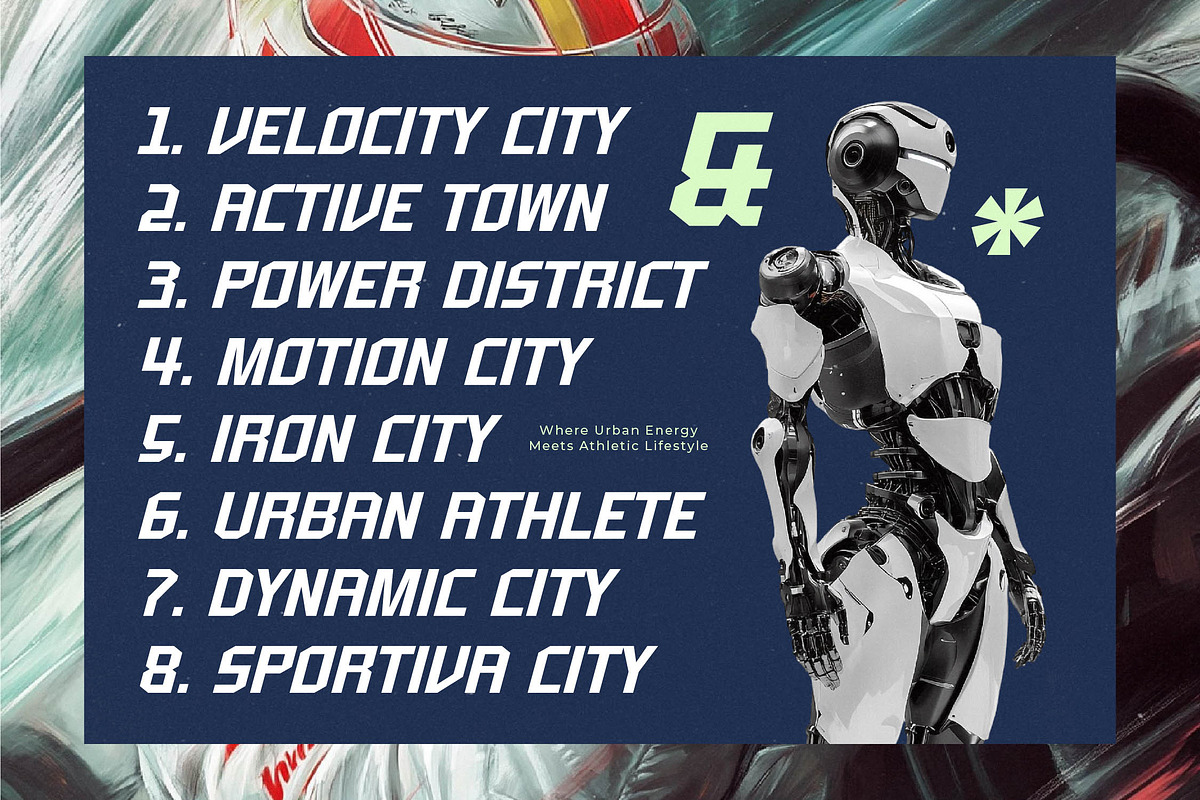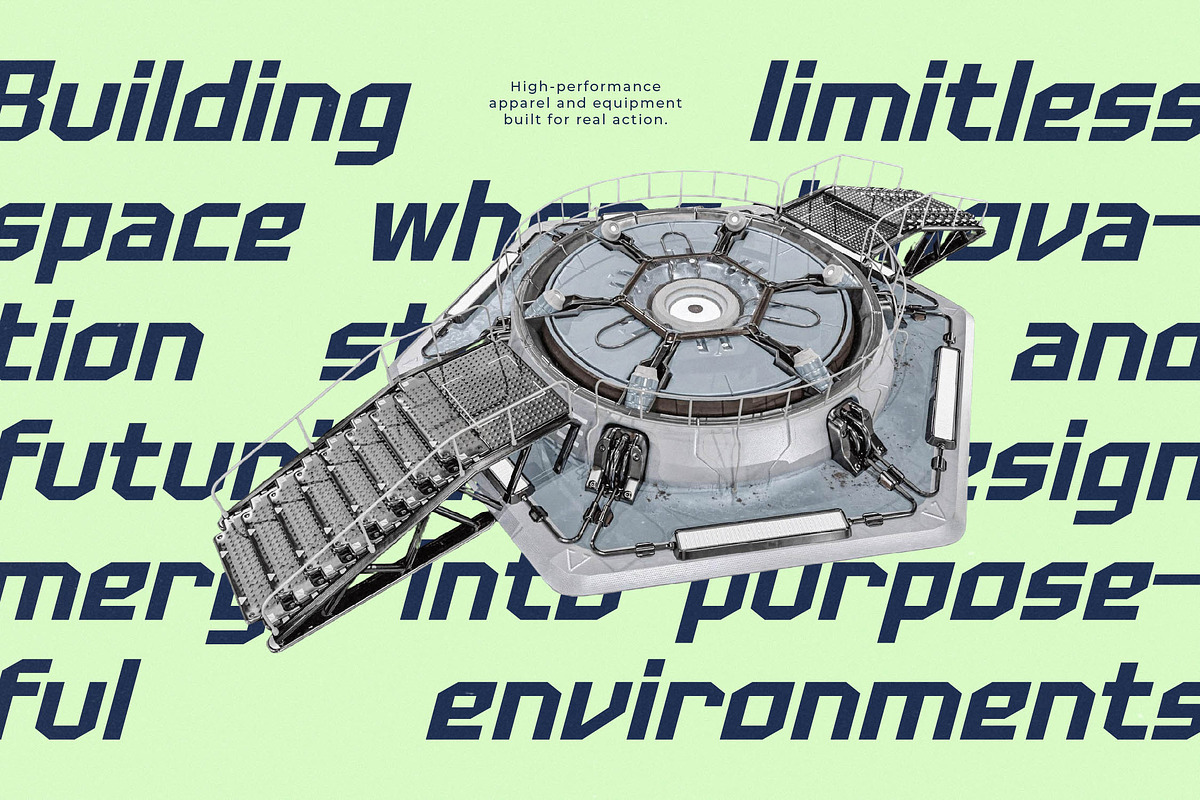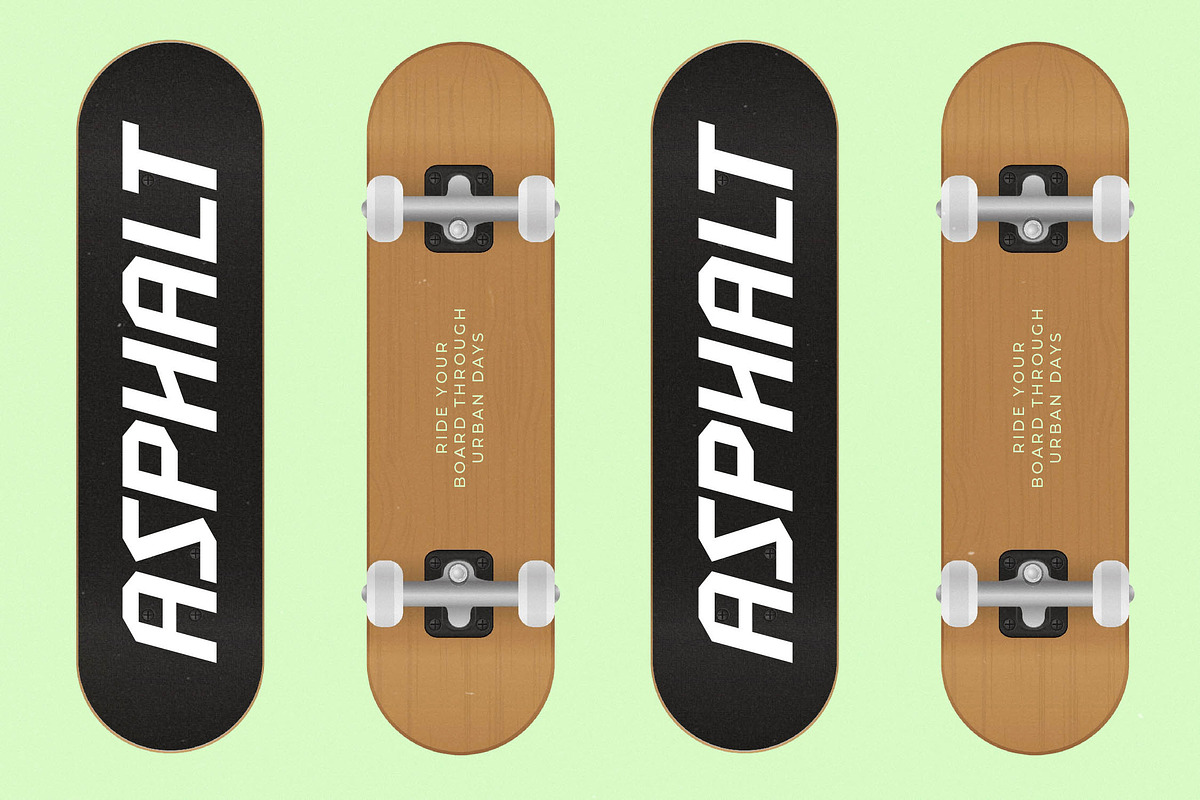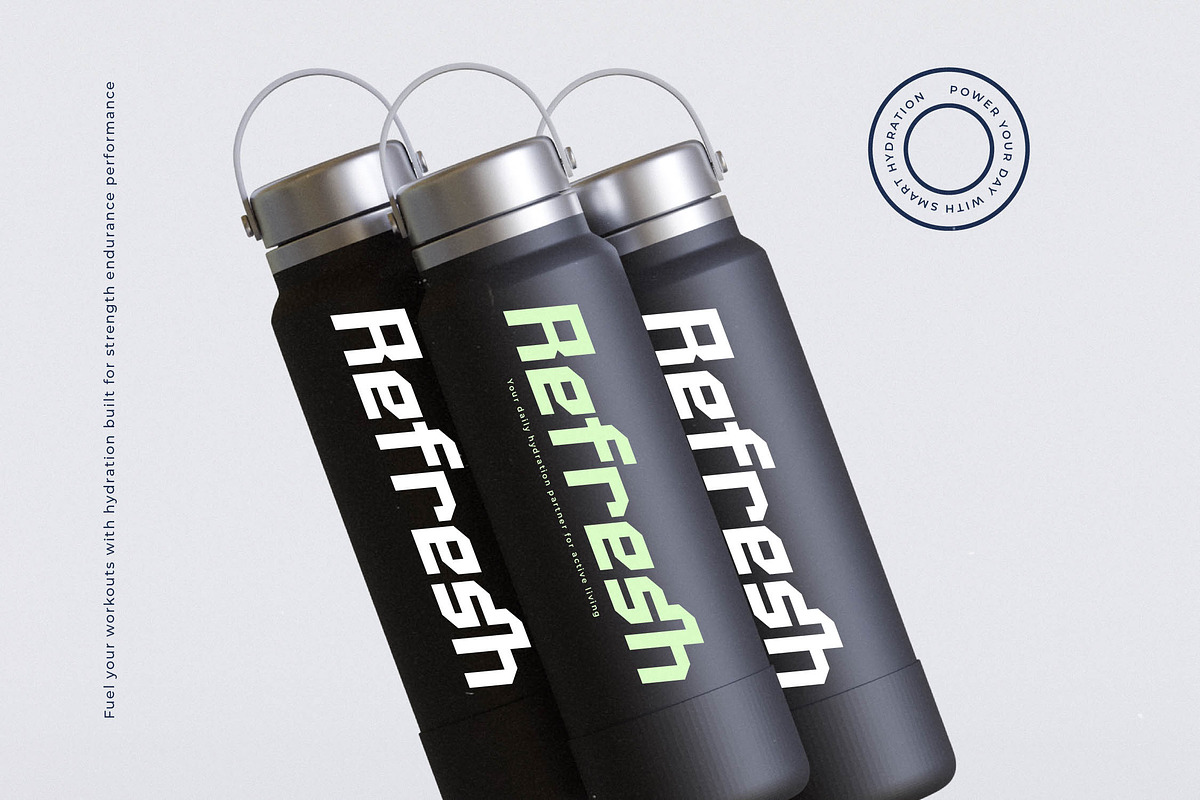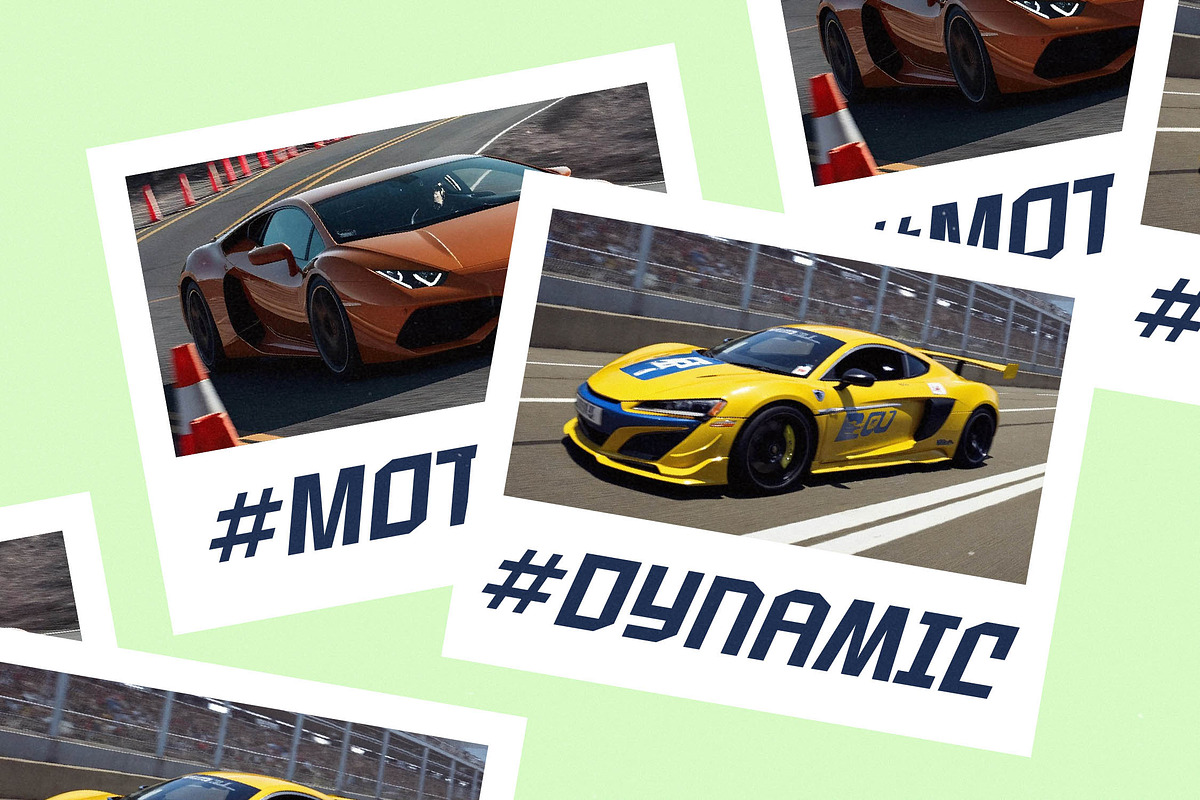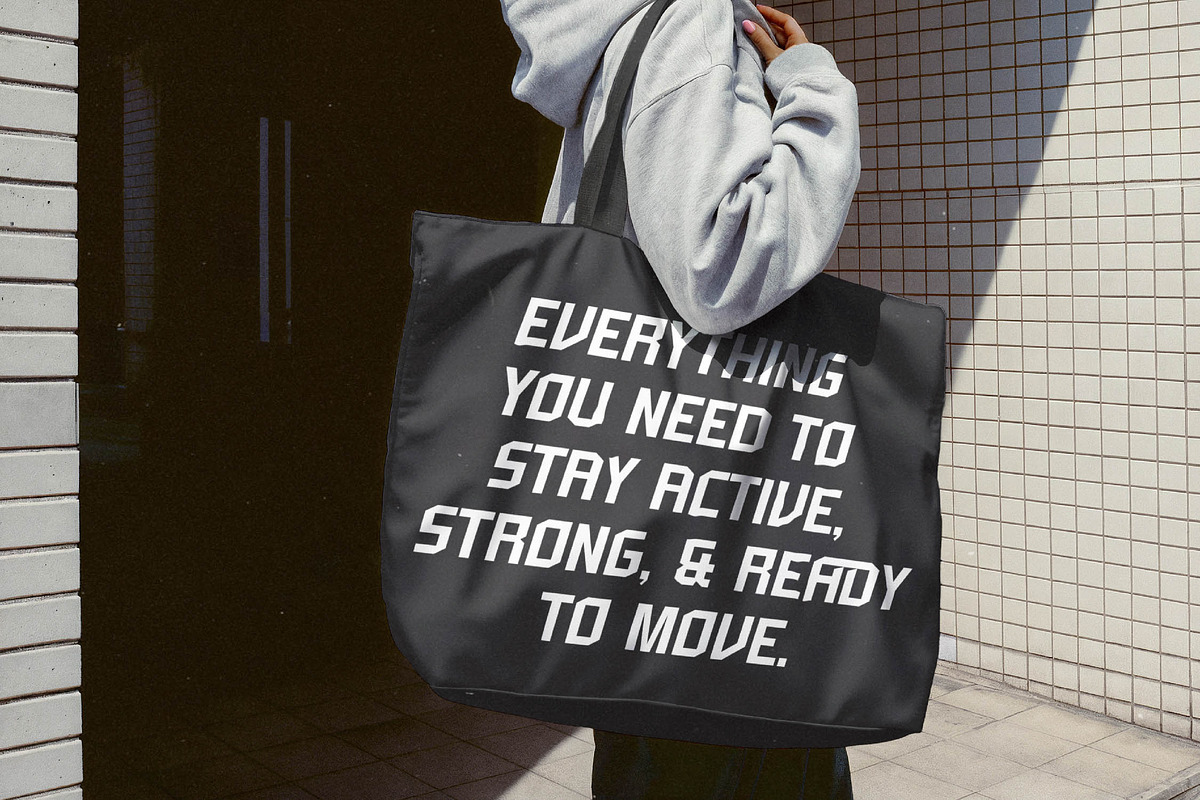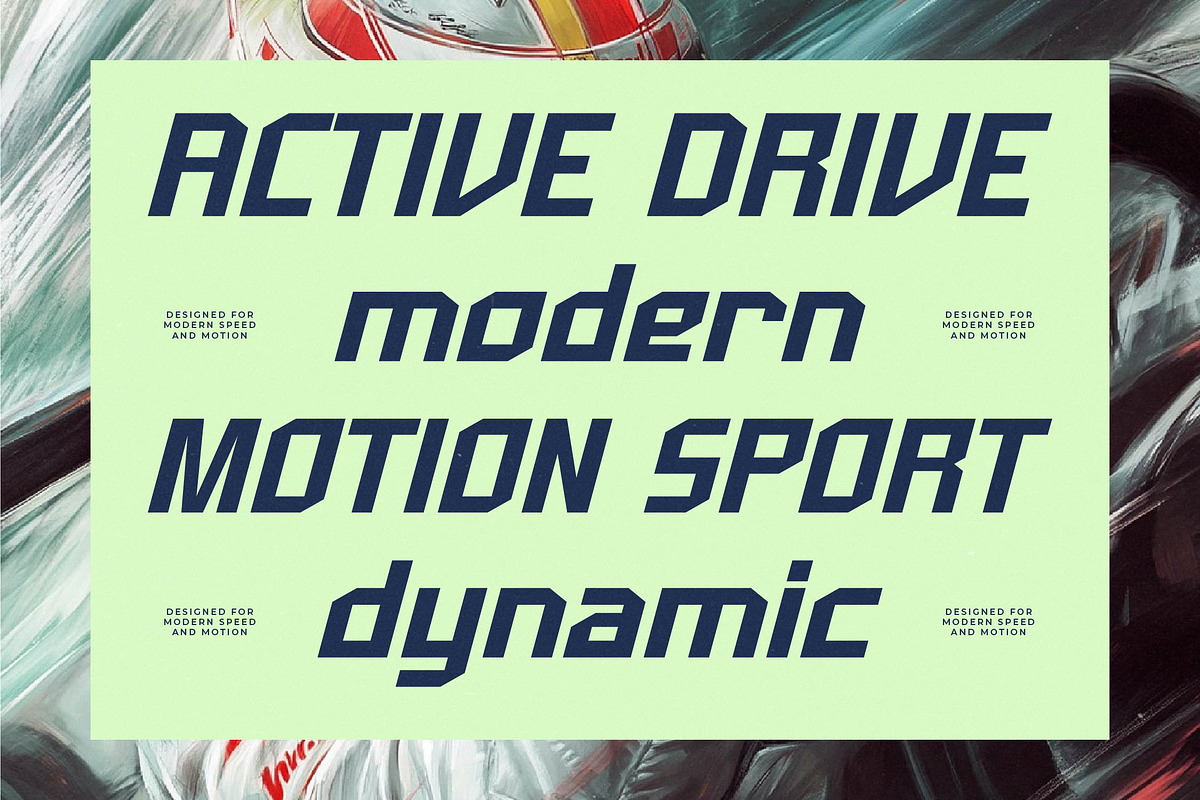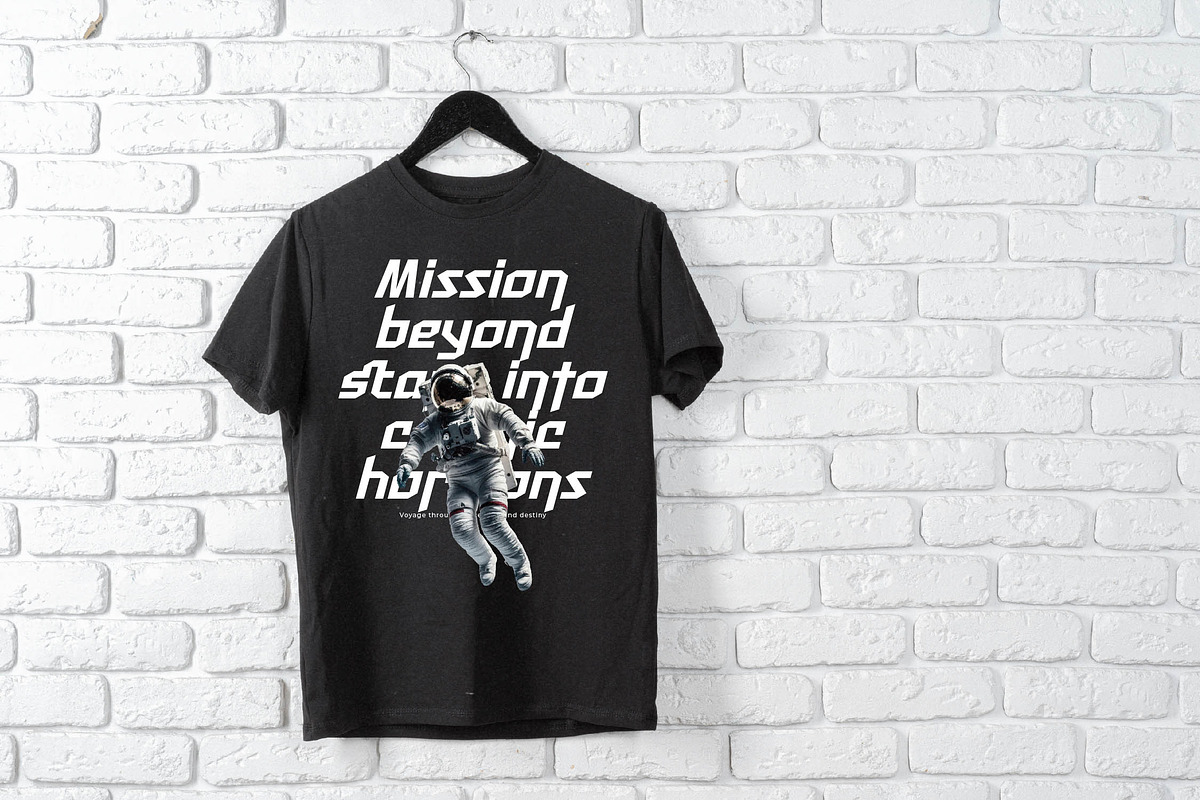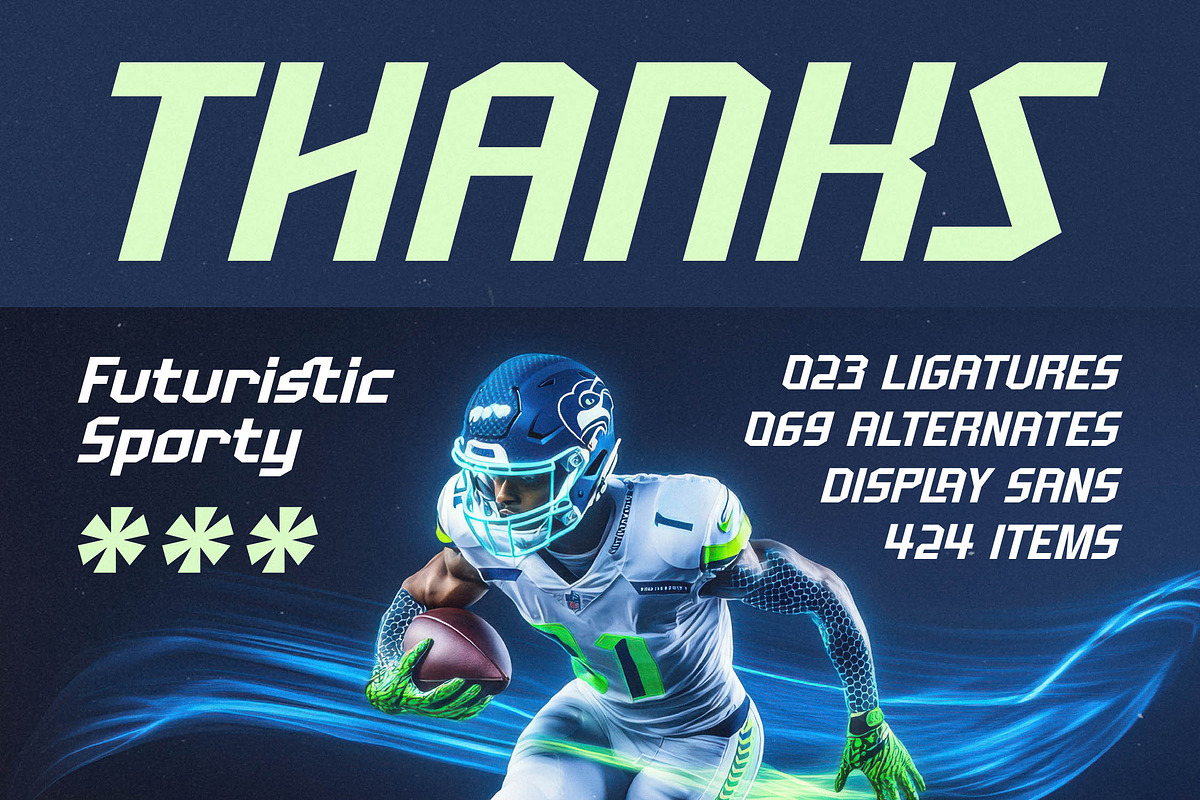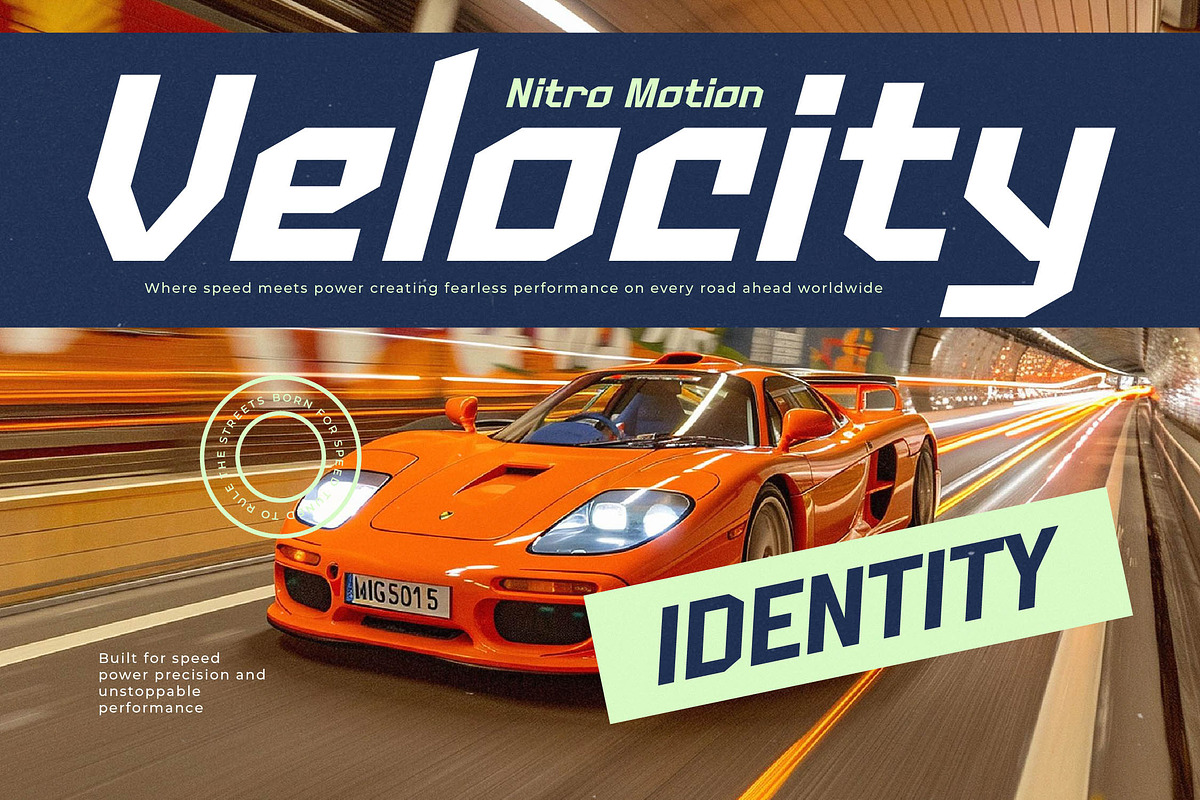
Menscity Futuristic Sporty Sans
Experience the raw energy of motion and precision with Menscity, a typeface engineered to define the future of athletic aesthetics. This font captures the essence of speed, delivering a powerful visual statement that resonates with the fast-paced world of modern competition.
Inspired by the sleek lines of high-performance racing cars and the aerodynamic forms of elite sportswear, its design evokes a sense of relentless forward momentum. The geometric structure and sharp angles reflect an environment where urban energy meets a cutting-edge athletic lifestyle.
Built for maximum visibility and authority, this modern sans display offers a unique sporty typography solution that ensures your message leads the pack. Its high-performance sans construction provides a massive branding impact, making it the ultimate futuristic font for creators who demand professional excellence.
As the modern sans trend continues to dominate the tech and sports industries, this typeface stands out with its distinct personality. These sporty display fonts leverage character-driven typography to bridge the gap between digital innovation and physical endurance in the current marketplace.
Whether you are crafting a professional logo design for a pro team or developing a comprehensive branding identity for a fitness startup, this versatile font excels in editorial layouts and product packaging. It is equally effective for racing graphics and high-end street fashion labels looking for a bold, technical edge.
This comprehensive package includes specialized ligatures and creative alternates that allow for deep customization and unique character combinations. With full multilingual support and a wide range of international characters, it is ready to perform on a global stage across all media.